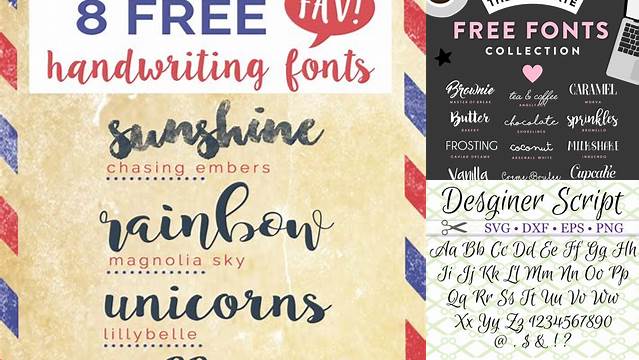
Free Hand Lettering Script Fonts: Your Ultimate Guide
Hey guys! Ever wanted to add a personal, artistic touch to your designs? Look no further! Free hand lettering script fonts are the way to go. They bring a unique, handcrafted feel that can make your projects stand out. In this guide, we'll dive deep into everything you need to know about these awesome fonts. Let's get started!
1. What is Hand Lettering?
Before we jump into fonts, let's quickly define hand lettering. Hand lettering is the art of drawing letters. Unlike typography, where you use pre-made fonts, hand lettering involves creating each letterform individually. This gives you complete control over the style and appearance, making it perfect for custom designs. So, when we talk about free hand lettering script fonts, we’re essentially talking about fonts that mimic this hand-drawn style, giving you that authentic look without the effort of drawing each letter yourself. Using free hand lettering script fonts is an excellent way to inject personality and warmth into your projects, whether you're designing invitations, logos, or social media graphics. The beauty of hand lettering lies in its imperfections – the slight variations in line weight and spacing that make it feel human and approachable.
Now, why would you choose free hand lettering script fonts over other font styles? Well, the answer is simple: they add a unique touch that's hard to replicate with standard fonts. Think about wedding invitations, where elegance and personalization are key. A free hand lettering script font can transform a simple invitation into a cherished keepsake. Or consider branding for a small business – a hand-lettered font can convey authenticity and a personal connection with customers. The versatility of these fonts makes them an invaluable asset for any designer or creative enthusiast. Plus, with so many options available, you're sure to find the perfect font to match your project's aesthetic.
2. The Appeal of Script Fonts
Script fonts, in general, are designed to mimic handwriting. They flow and connect, giving a sense of elegance and personality. When combined with the hand-lettered style, they become even more special. A well-chosen script font can evoke emotions and create a specific mood, making it an essential tool for designers. The flow of the letters, the loops and swirls, and the overall rhythm of the text contribute to the aesthetic appeal. Using free hand lettering script fonts, you can capture the essence of human touch in your designs, making them more relatable and engaging.
One of the main reasons script fonts are so appealing is their ability to convey a sense of authenticity. In a world dominated by digital perfection, a font that looks hand-drawn stands out. It tells a story, suggesting that care and attention went into the design. This is particularly important for brands that want to project a sense of craftsmanship or artistry. Whether it's a coffee shop logo, a handmade product label, or a personalized greeting card, a free hand lettering script font can add that extra layer of charm. The subtle imperfections and unique character of each letterform create a visual texture that is both inviting and memorable.
3. Where to Find Free Hand Lettering Fonts
When searching for free hand lettering script fonts, pay close attention to the details. Look for fonts with clean lines, consistent spacing, and well-defined letterforms. A high-quality font will be easy to read and visually appealing, even at small sizes. It's also a good idea to check for kerning issues, which can affect the overall appearance of the text. Kerning refers to the spacing between individual letters, and poor kerning can make a font look unprofessional. If you find a font that you love but notice some kerning problems, you can often adjust it manually in your design software. With a little bit of patience and attention to detail, you can find amazing free hand lettering script fonts that elevate your designs to the next level.
4. Understanding Font Licenses
Font licenses can be tricky. Generally, free fonts come with either a personal use license or a commercial use license. Personal use means you can use the font for non-commercial projects, like personal blogs or school assignments. Commercial use allows you to use the font in projects that generate income. Always read the fine print! Understanding font licenses is crucial to avoid any legal issues. When in doubt, it's always best to err on the side of caution and contact the font designer or distributor for clarification. Using a font without the proper license can lead to serious consequences, including fines and legal action. Therefore, it's essential to do your due diligence and ensure that you have the necessary permissions before using a font in any project, especially those that involve commercial gain.
Many free hand lettering script fonts come with specific restrictions on how they can be used. For example, some fonts may be free for personal use but require a commercial license for business purposes. Others may allow commercial use but prohibit modification or redistribution of the font files. It's important to read the license agreement carefully to understand the terms and conditions. If you're unsure about any aspect of the license, don't hesitate to reach out to the font designer or distributor for clarification. They will be able to provide you with the information you need to ensure that you're using the font in compliance with the license terms. Remember, respecting font licenses is not only a legal obligation but also a way to support the designers who create these amazing resources.
5. Popular Free Hand Lettering Script Fonts
Some popular free hand lettering script fonts include